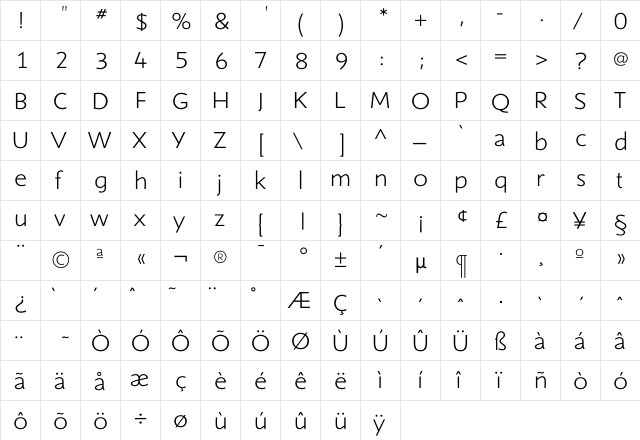
ShinnLight Regular
Design Context for ShinnLight Typeface
ShinnLight offers clean, dependable letterforms without strong stylistic allegiance, making it a practical choice for designers who need flexibility. Its slender proportions lend an understated elegance to any composition.
Pro Tip: Pair ShinnLight with a font of contrasting weight or personality to build a more expressive typographic hierarchy.